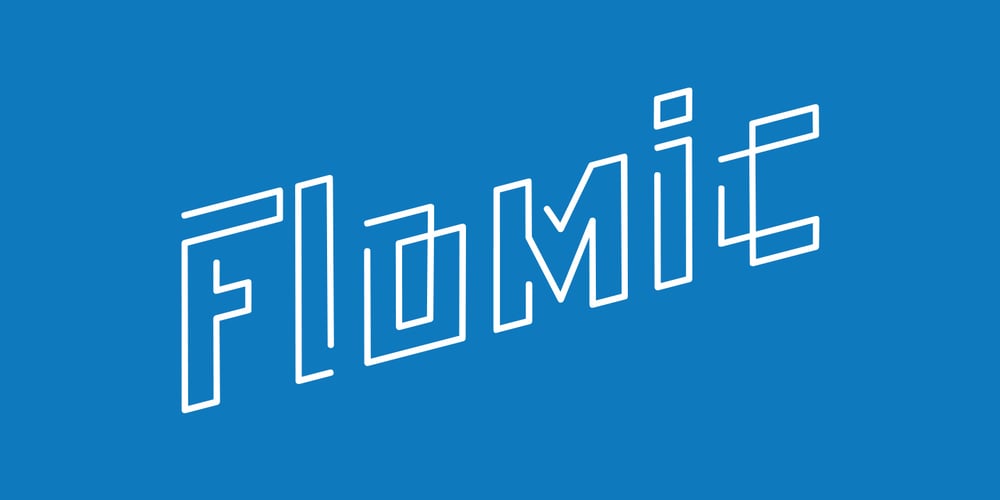
Flomic
Flomic font
Flomic Font Family was designed by Sergey Melnikov and published by Sergey Melnikov. Flomic contains 1 styles and family package options. Ukrainian type designer Melnikov Sergey created Flomic font between 2015 and 2016. Flomic is a geometric sans built from a folded lines. Most effective when used in short words or phrases at larger sizes, where the details can be appreciated.